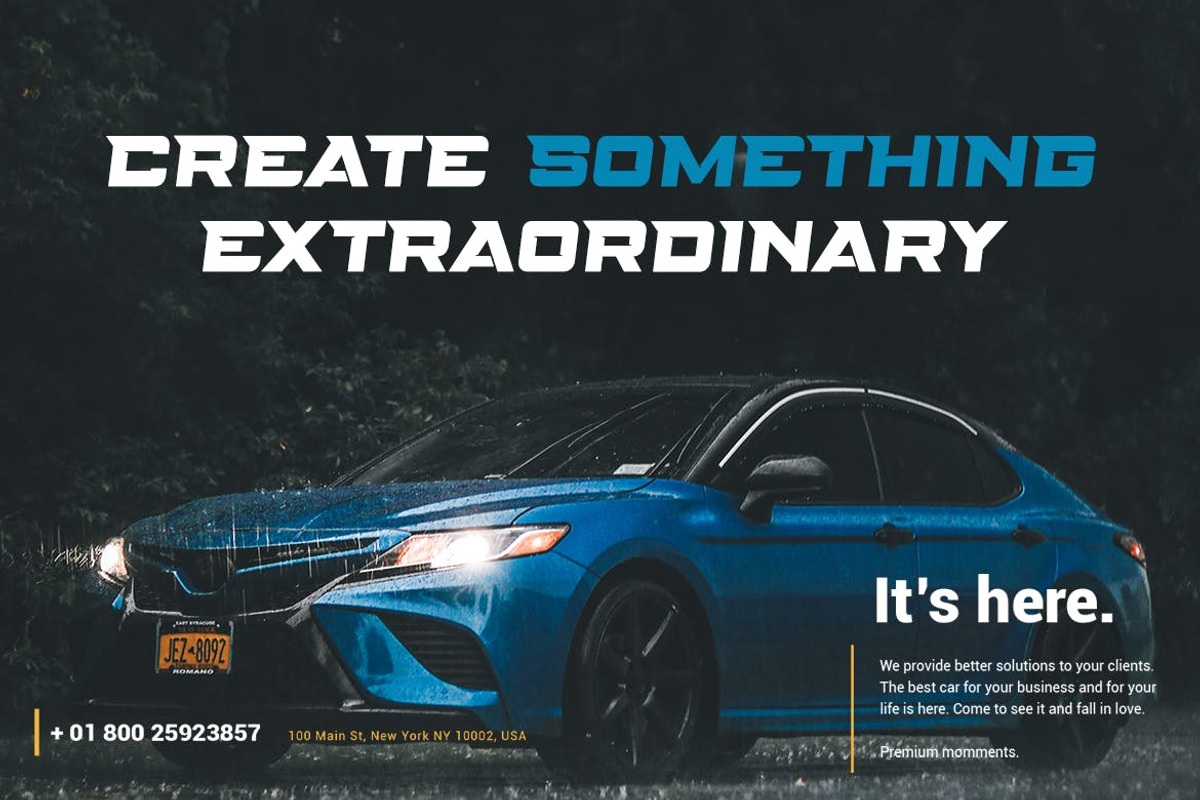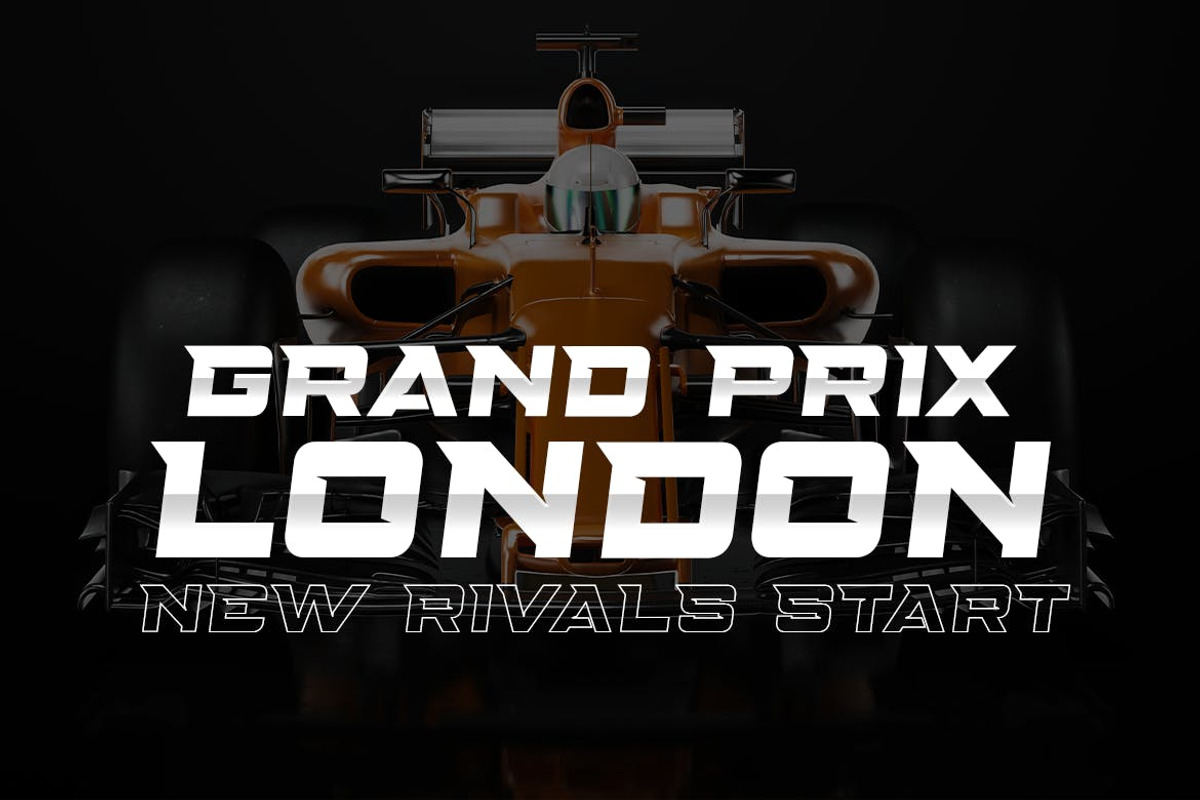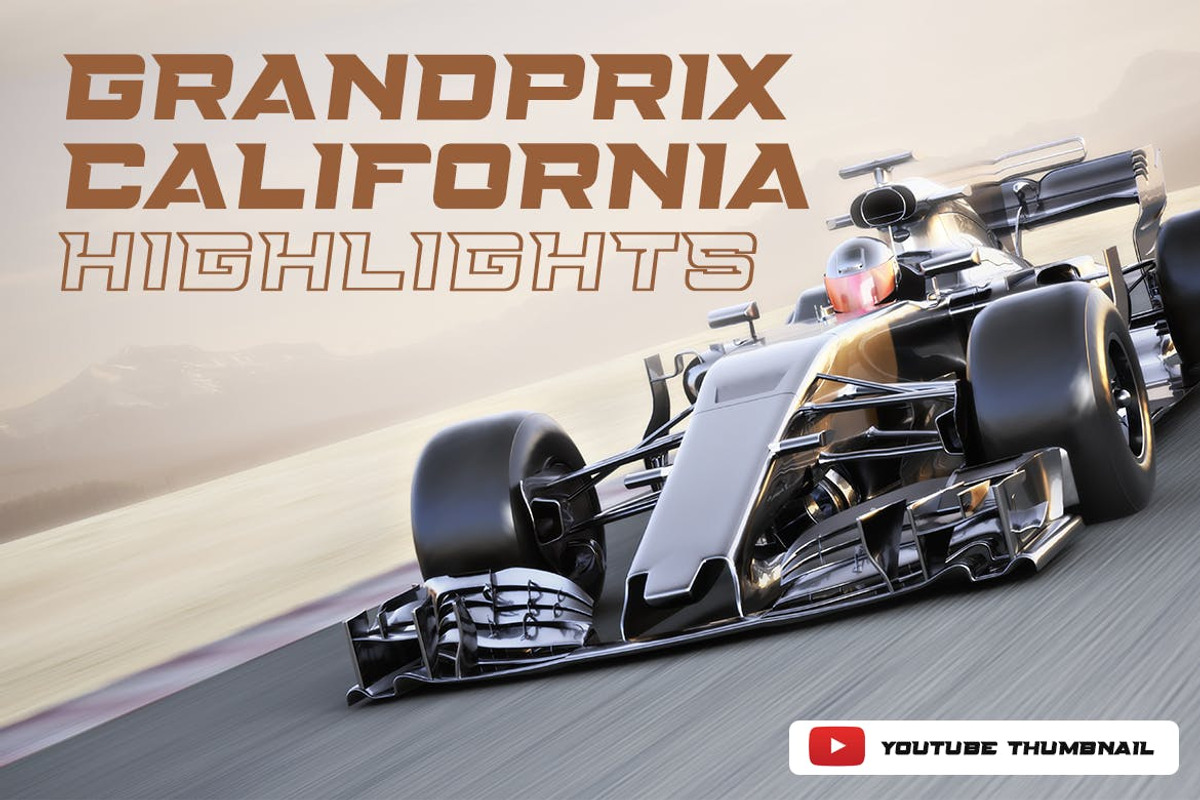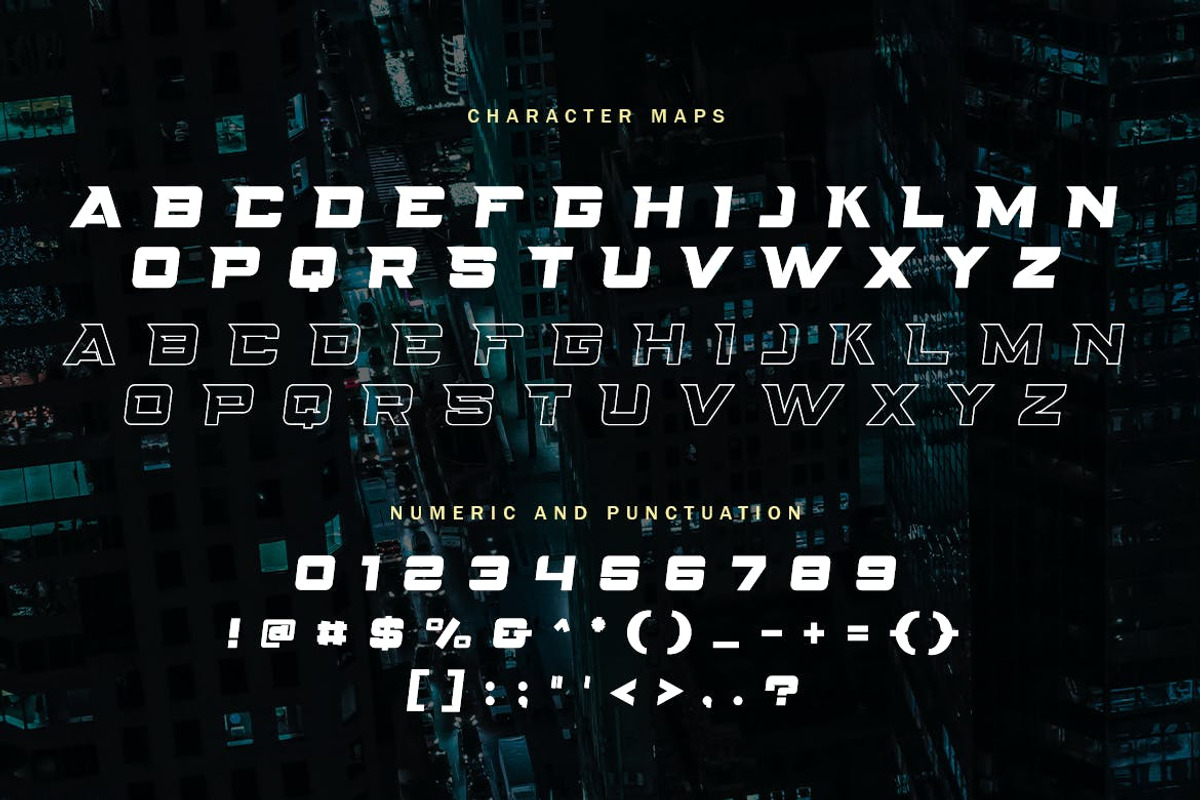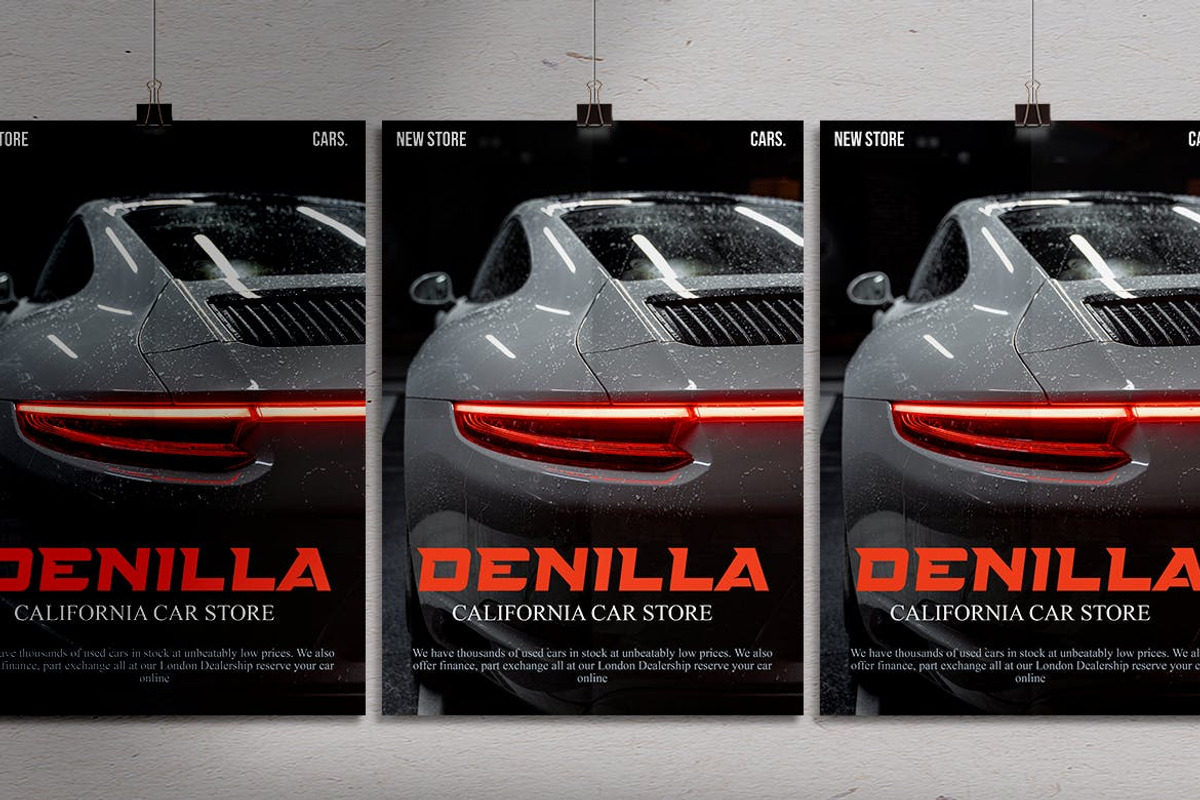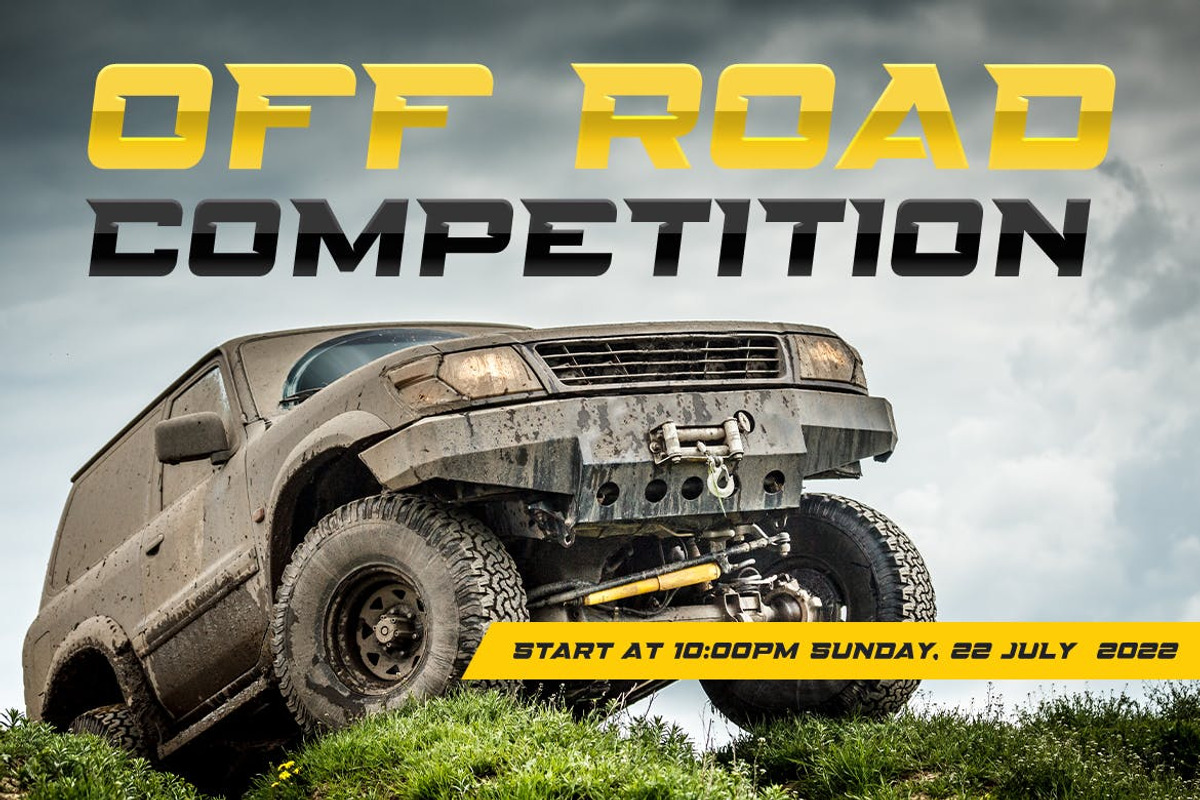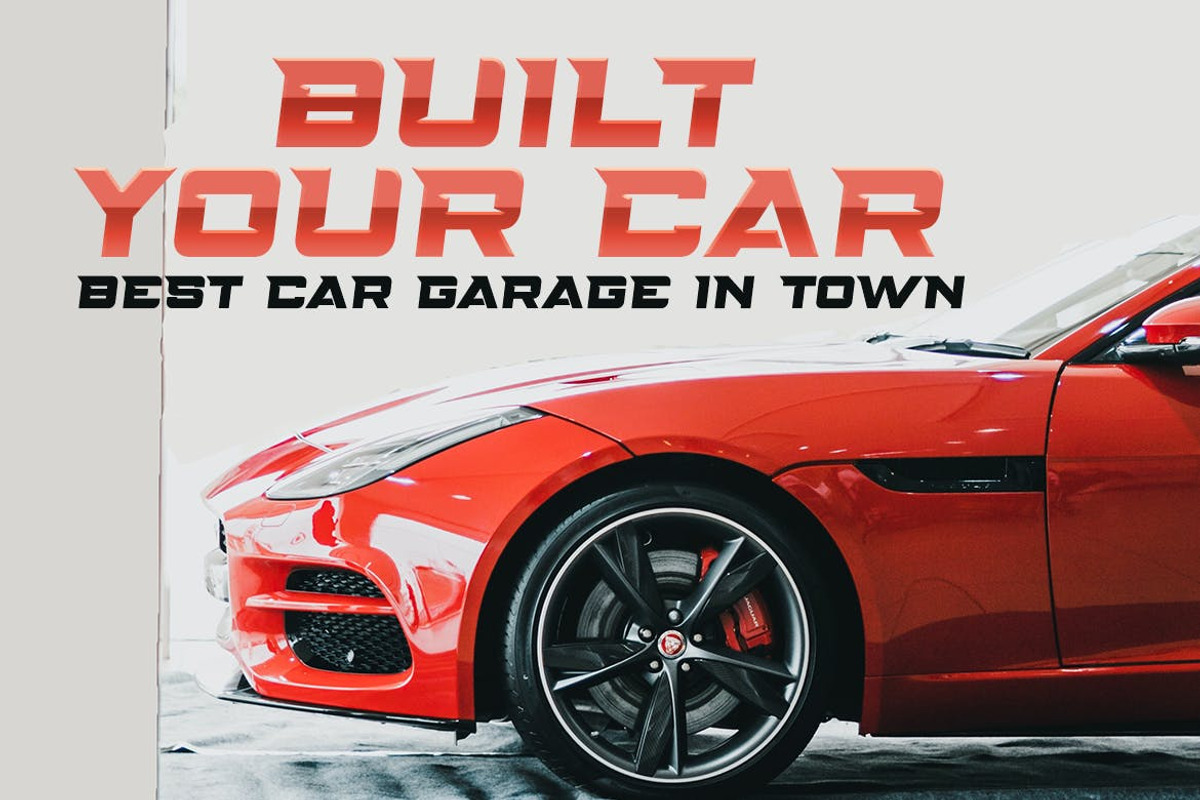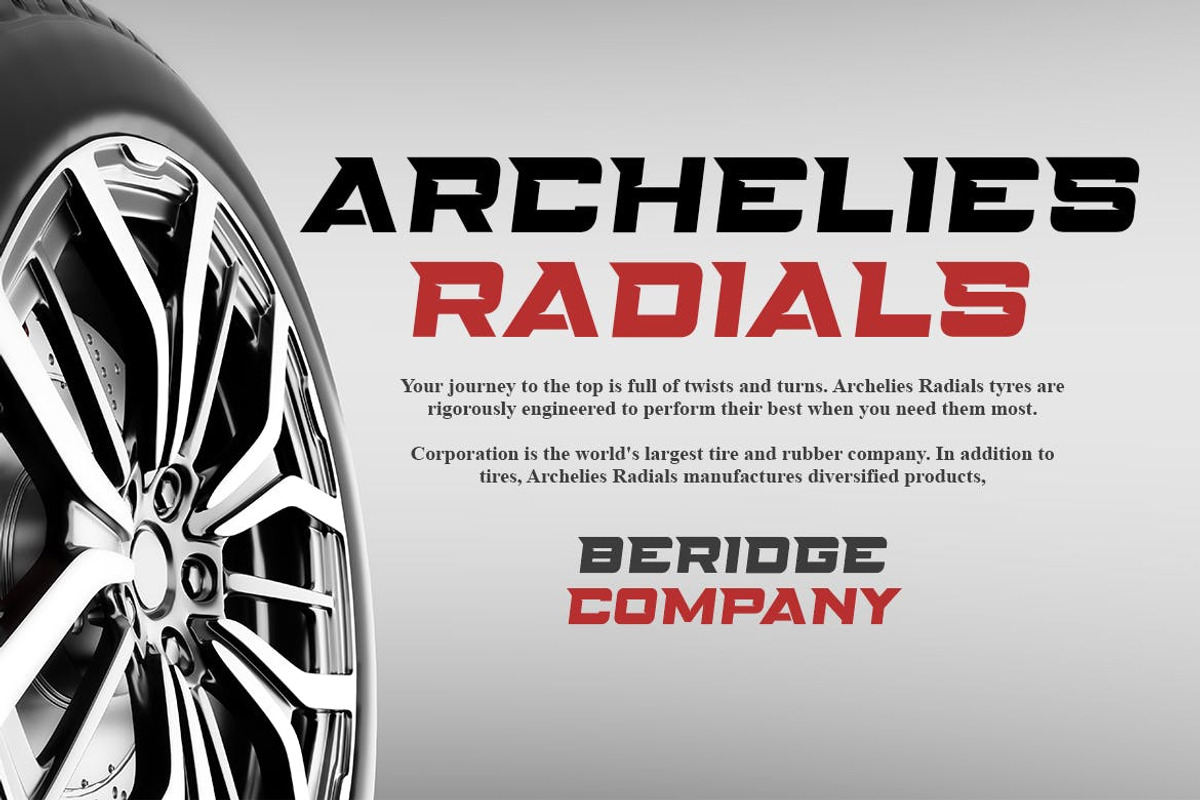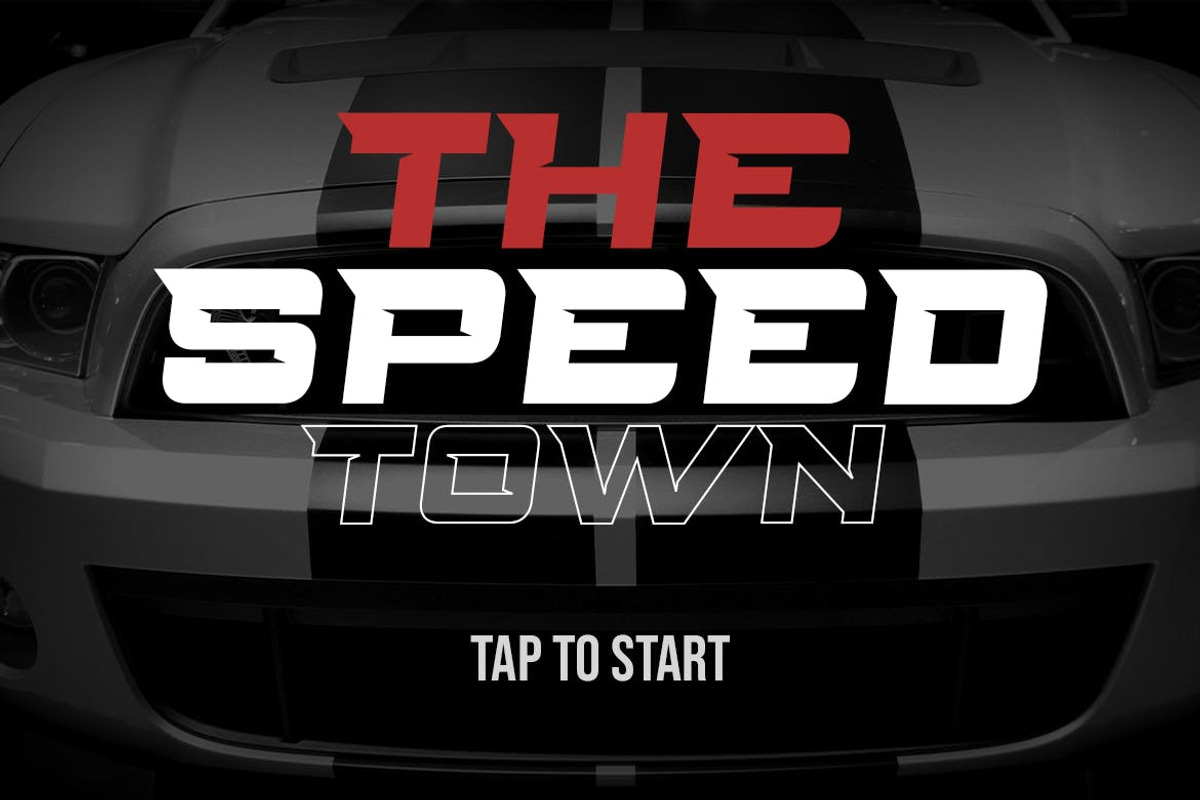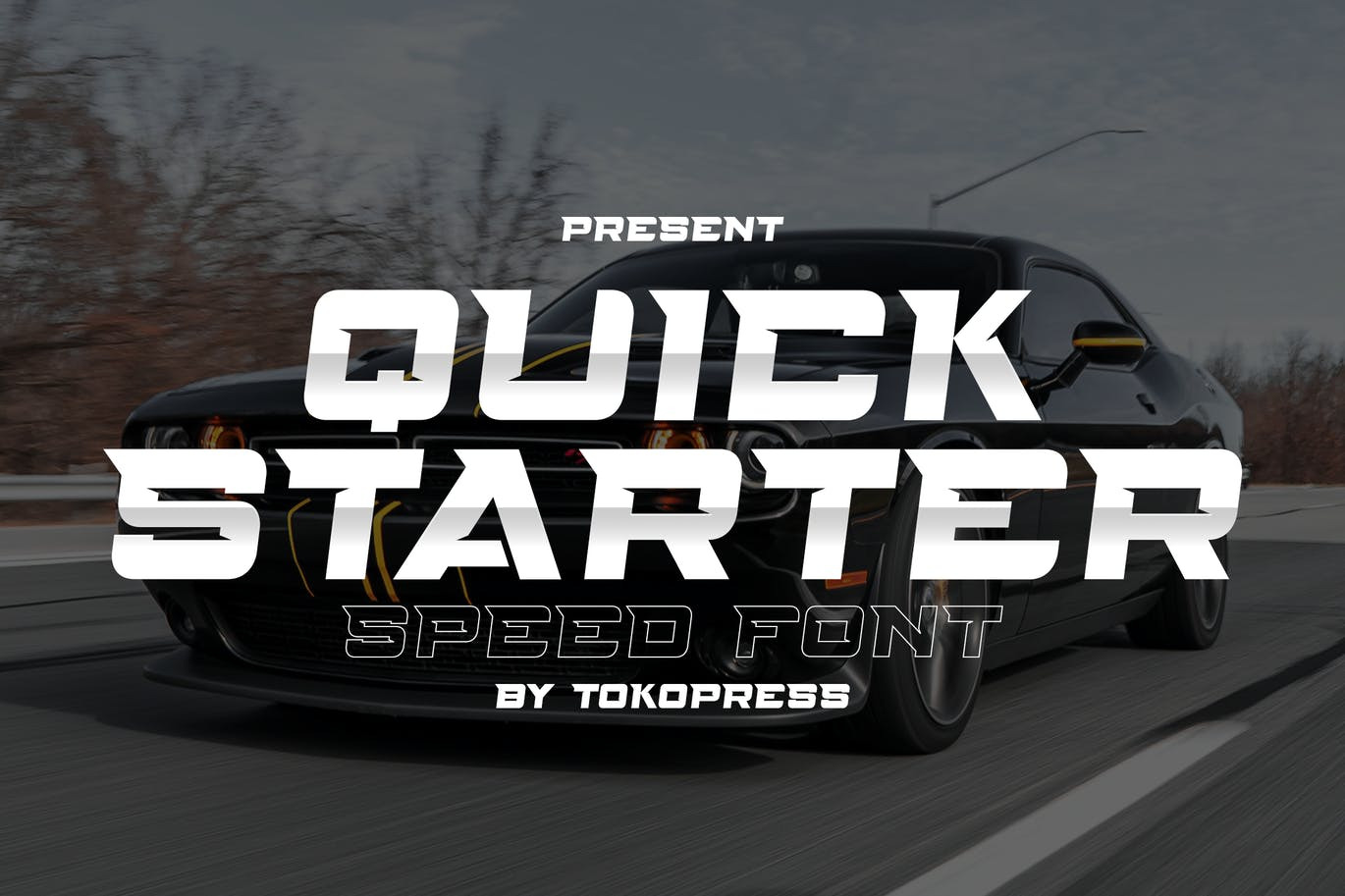
QUICKSTARTER - Racing Gaming font
QUICKSTARTER - racing gaming font
It speaks speed, racing, and roaring machine with the highest RPM you can get on the asphalt. With powerful, strong sharp corner, and a solid shape for uppercase, and lineart version for the lowercase, it will make QUICKSTARTER emphasize the racing spirit inside your designs.
Suit perfectly for Racing theme online games, poster, movie title, fast food menu, magazine, youtube covers, youtube thumbnails, social media page covers and so on...